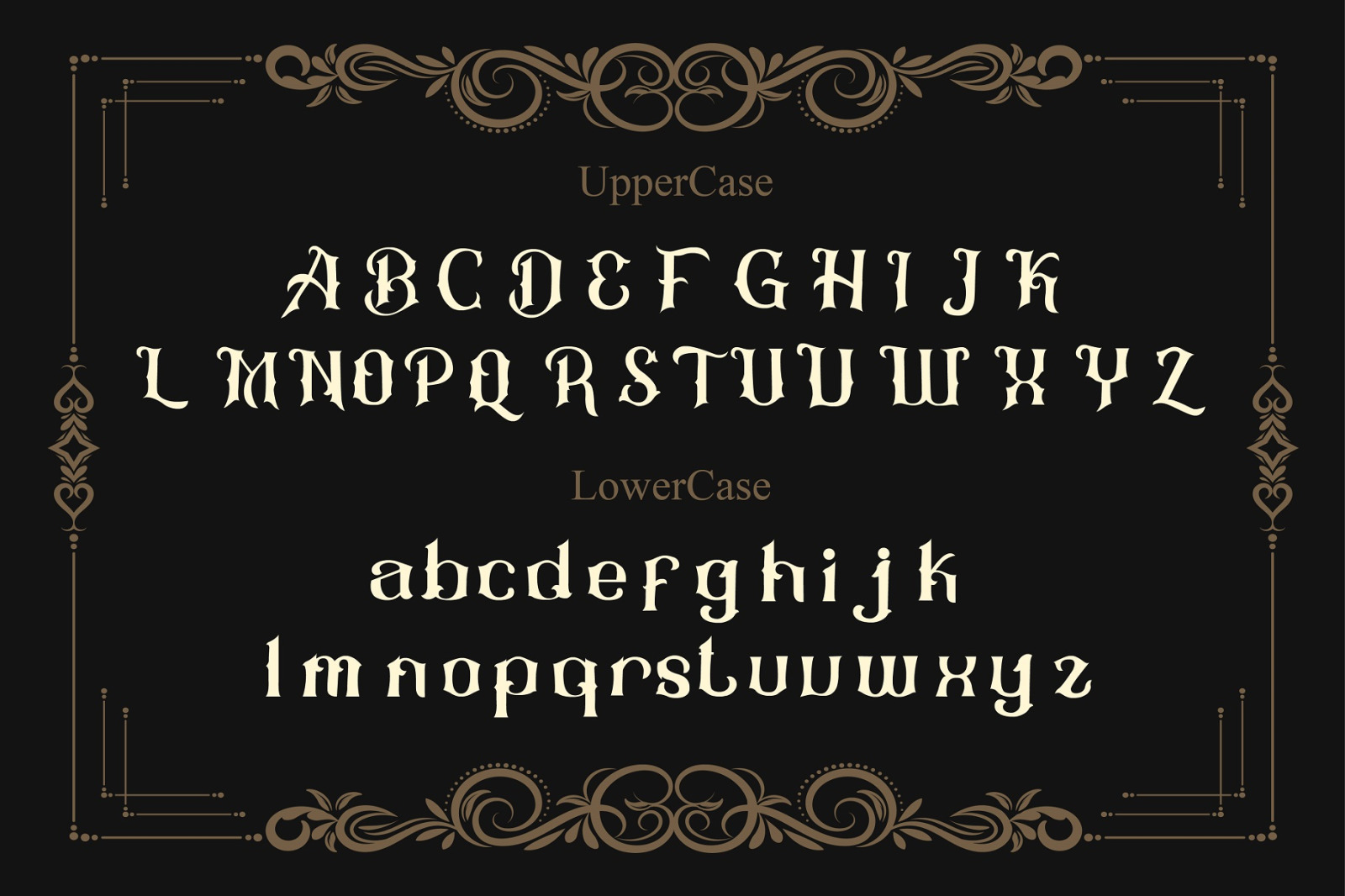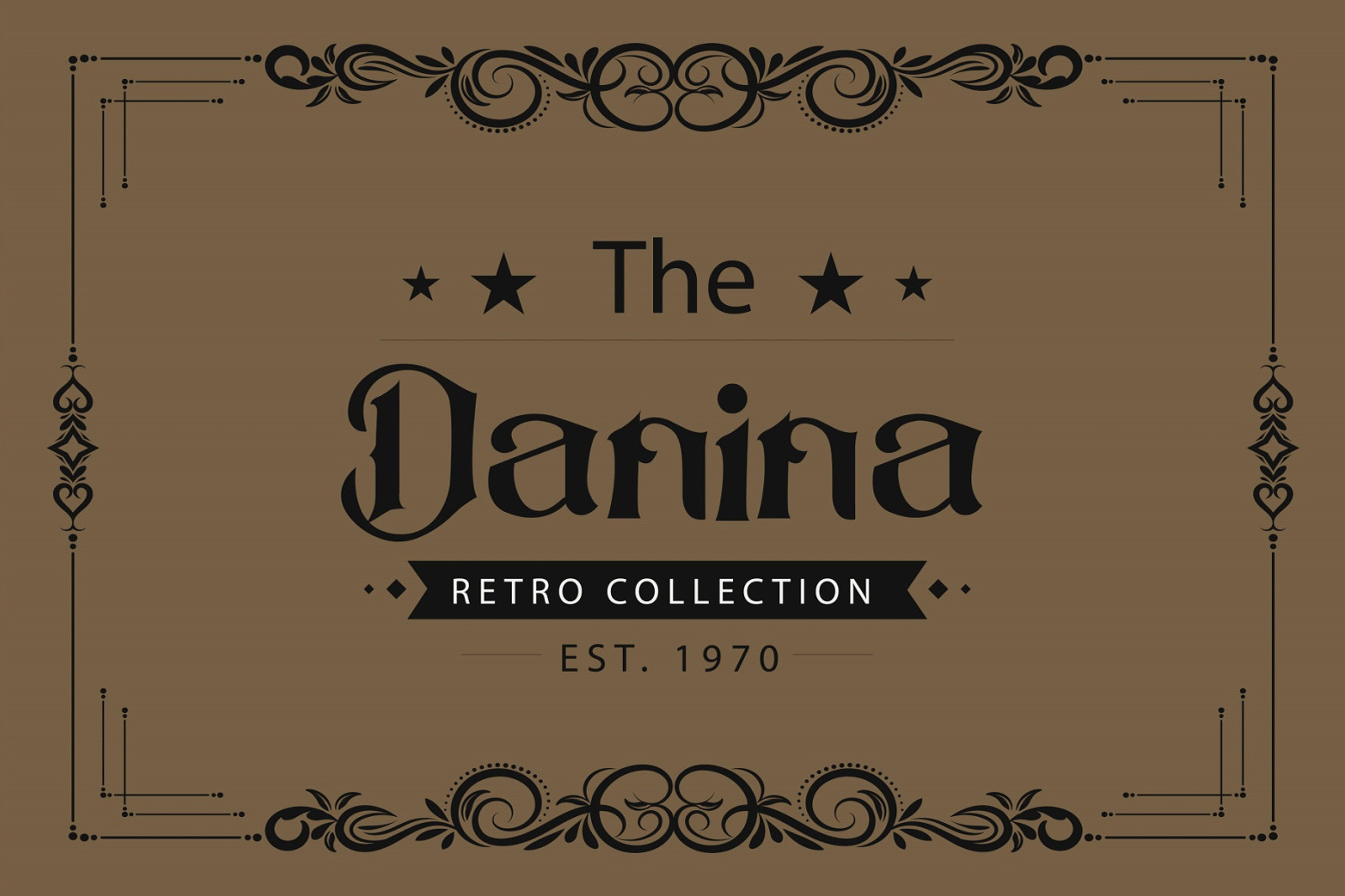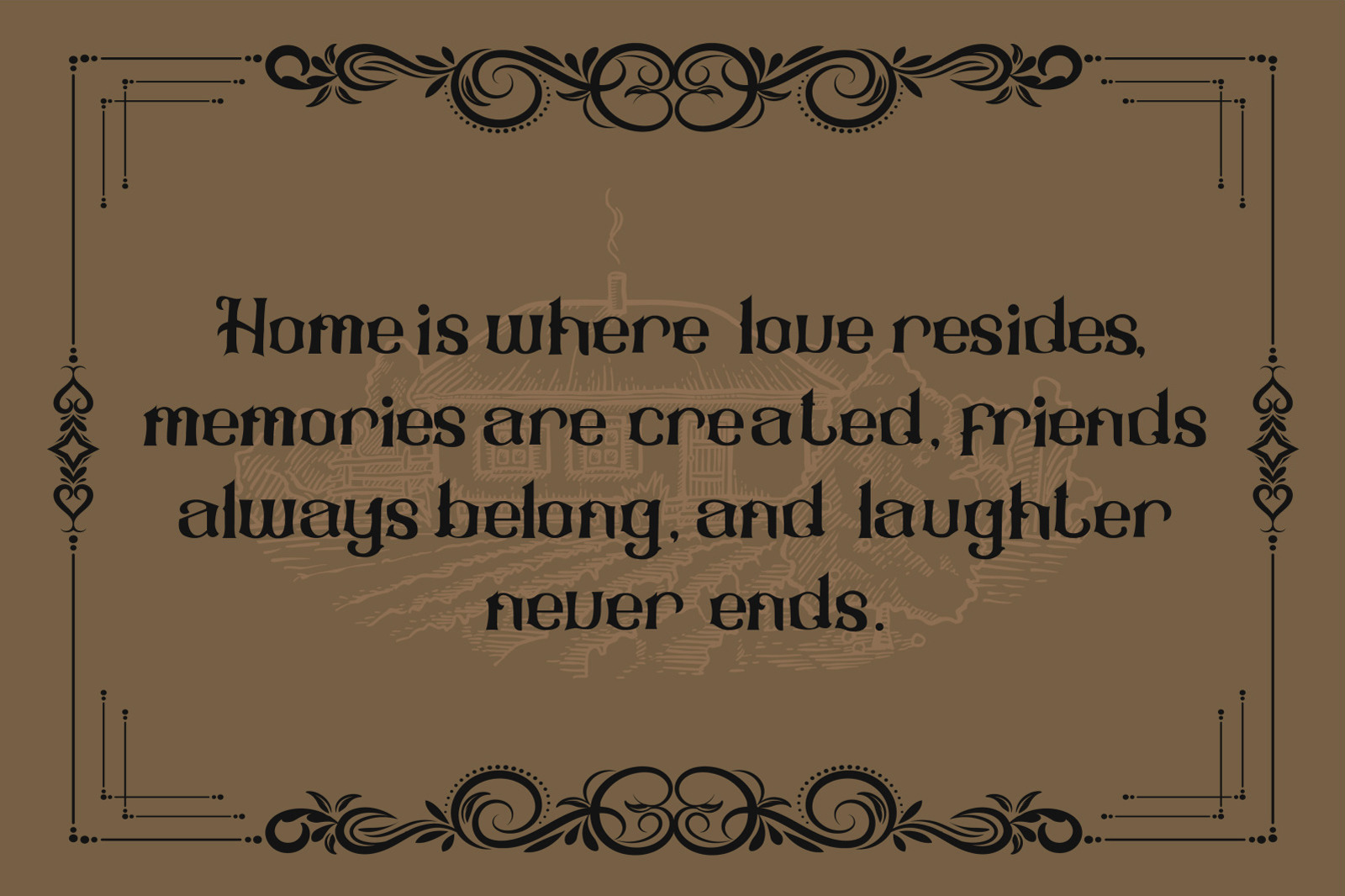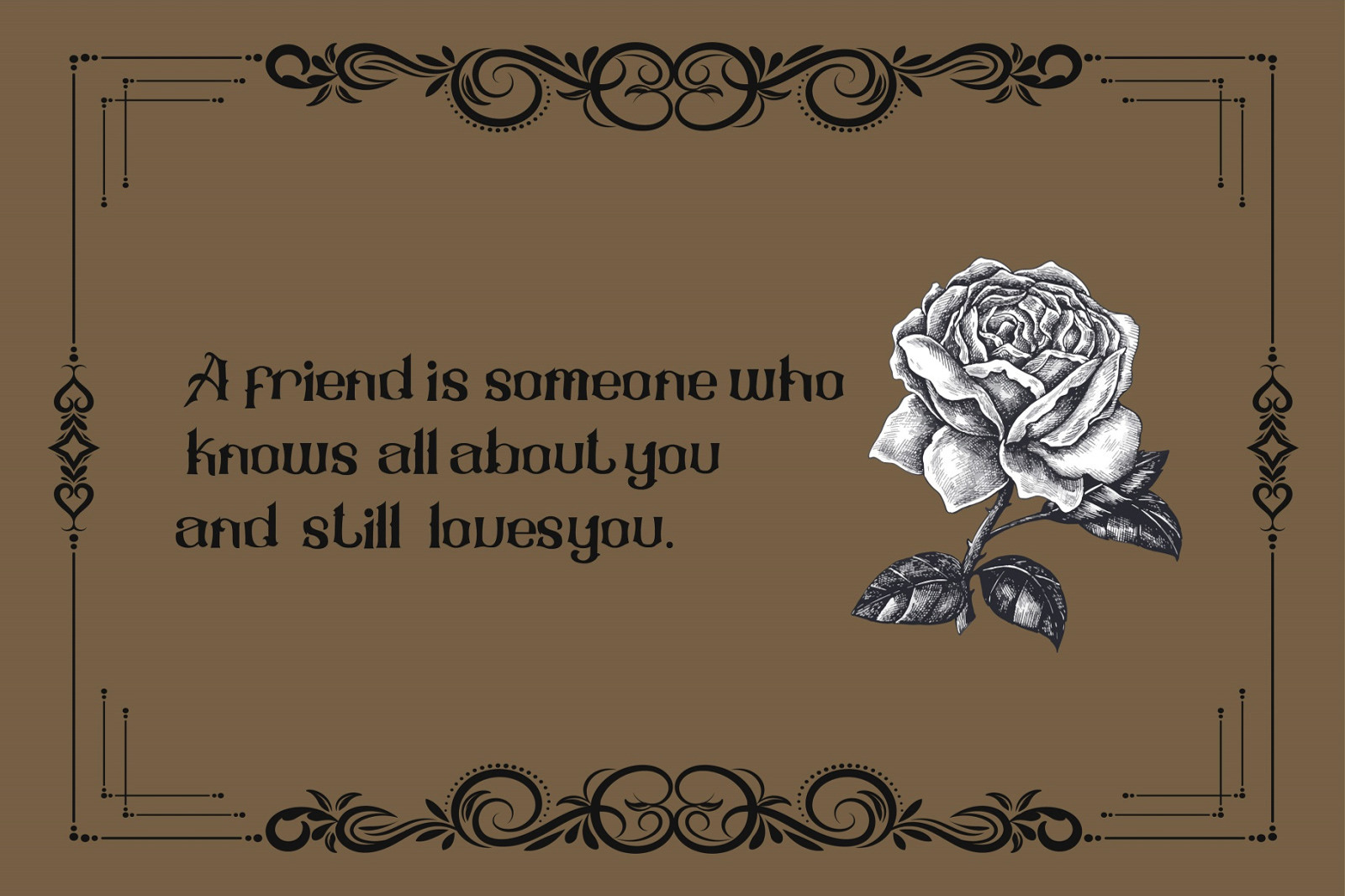
Bulgani Decorative font
Bulgani is a Decorative font inspired from graphics and vintage posters, that is done entirely by hand, made with a simple style, classic look, elegant and natural.